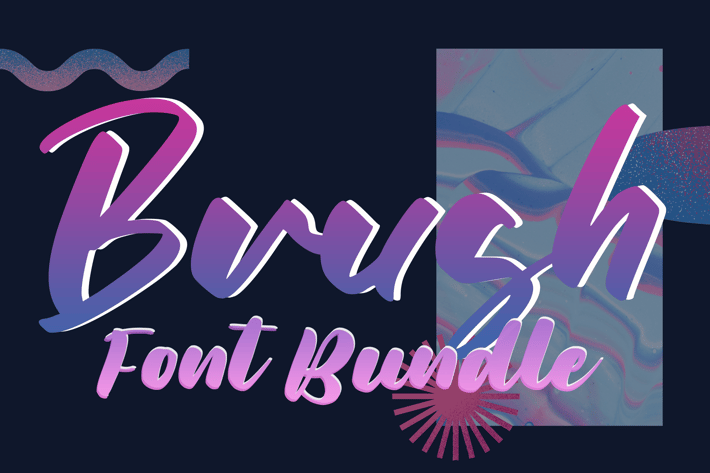
Brush Fonts
Krafted
This awesome font bundle offers TONS of amazing Brush and Bold Font! Whether you are designing logos, posters, invitations, websites, or t-shirts, you are sure to find something to match your design style.
MOST of the fonts in this bundle offers alternate ligature feature